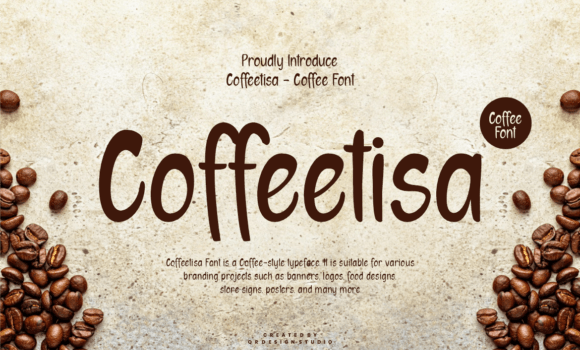
coffeetisa
Coffeetisa Font – Free Download Introduction to Coffeetisa Font Coffeetisa is a sweet and friendly handwritten font. 📸 Preview Gallery 6 images 📌 Product Name Coffeetisa Font 👤 Author qrdesignstd 📂 Category Explore ⬇️ Download Coffeetisa Font FREE Free Download